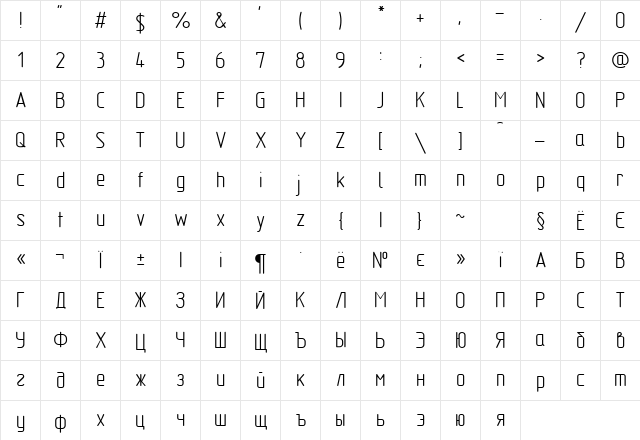
GOST type A Regular
Design Context for GOST type A Typeface
GOST type A takes a measured approach to typography — its balanced proportions and neutral character make it a reliable workhorse for both digital and print work.